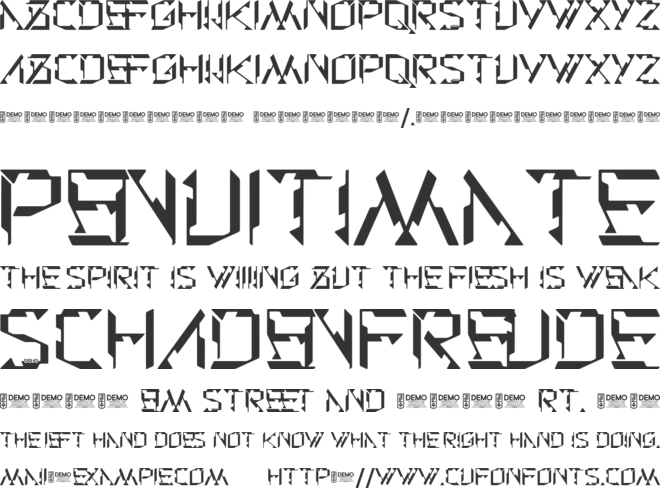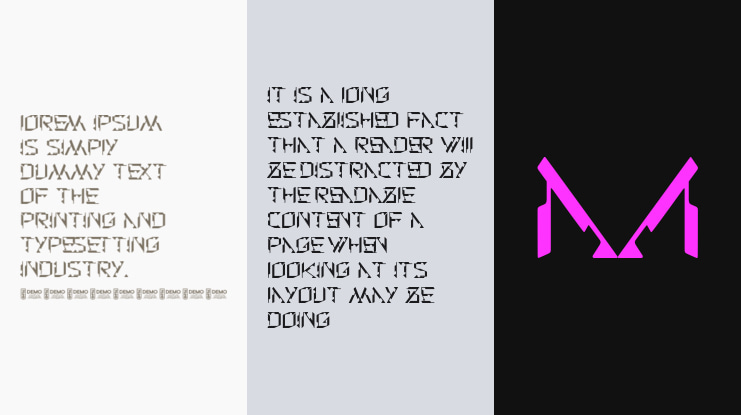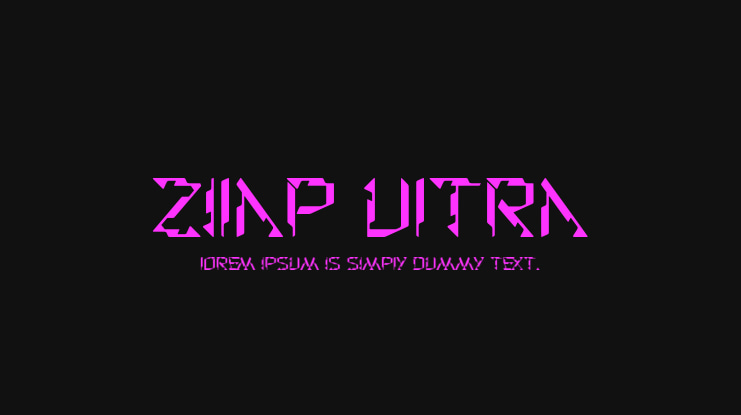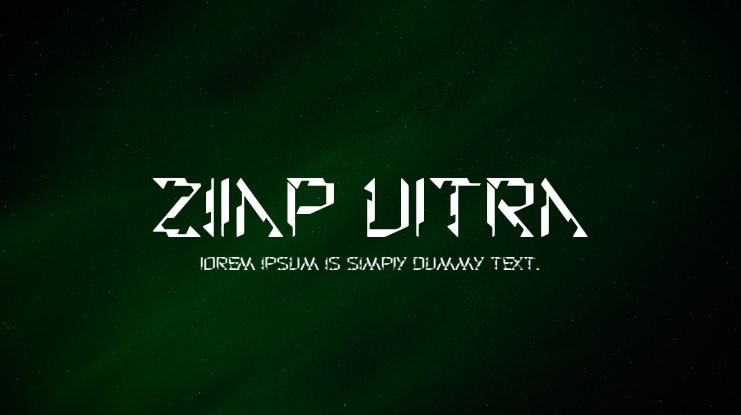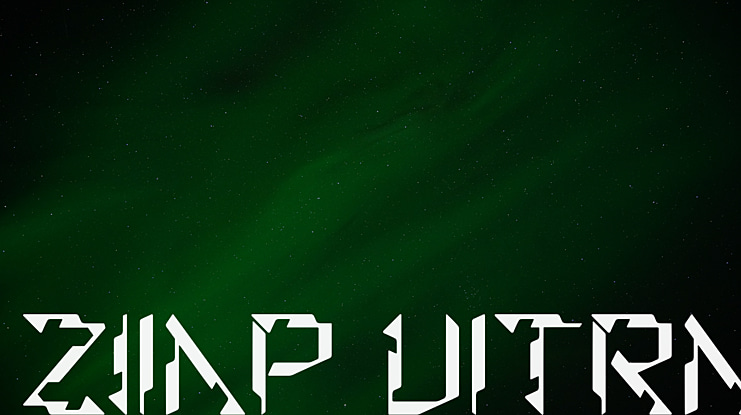
Zilap Ultra Font
Juan Navarro, Luis Jaramilllo
Zilap Ultra • Futuristic Font.
A font inspired by the new logo of Dj and producer Skrillex.
The font focuses on the bases of this isotope and adapts to each letter to achieve a totally futuristic result and cyberpunk characteristics.
A very fresh typeface that can be adapted to a variety of projects that seek a lot of personality, style and differentiation.